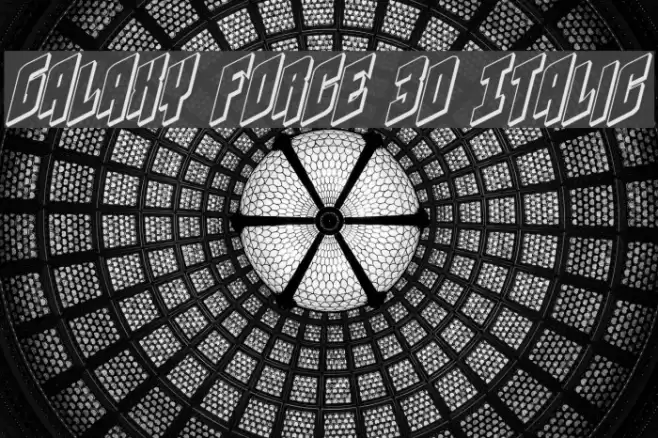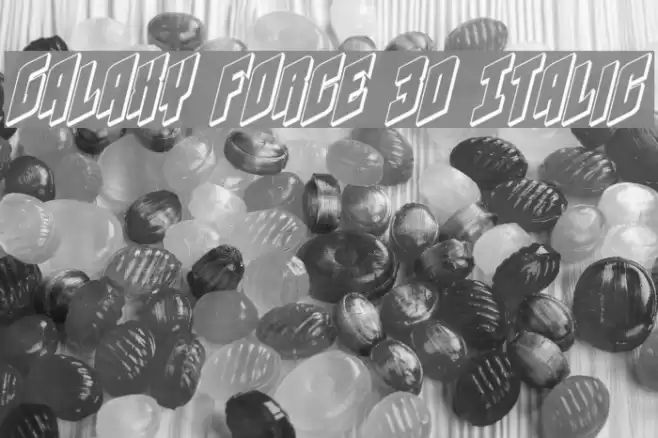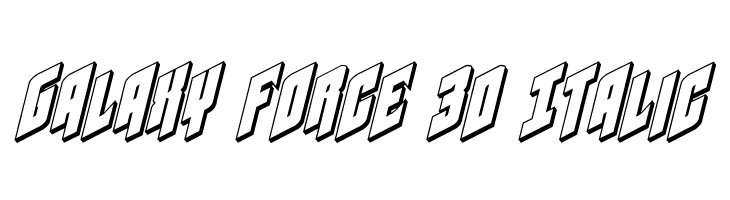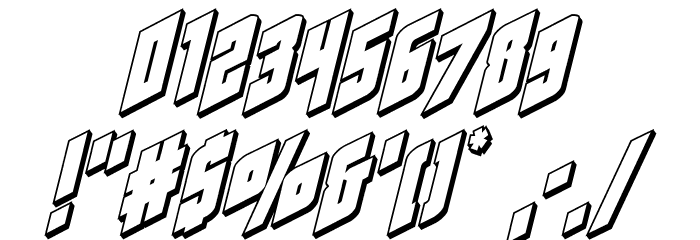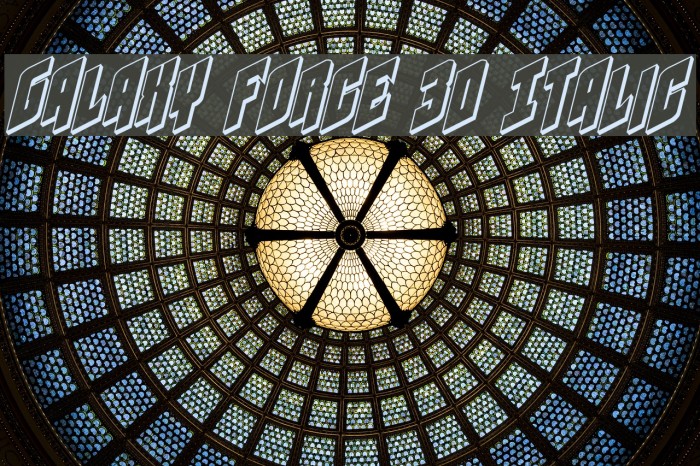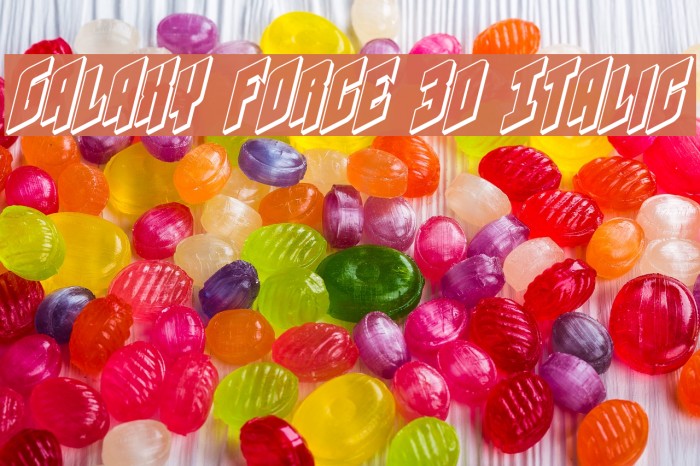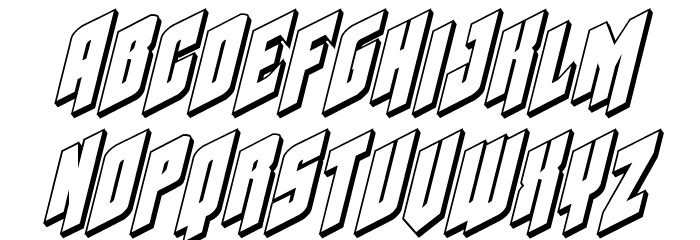
Galaxy Force 3D Italic Font
Galaxy Force 3D Italic Description
This dynamic and bold typeface features a striking 3D effect with italicized characters, giving it a futuristic and energetic appearance. The letters are sharply angled, creating a sense of movement and speed. The thick strokes and shadowing enhance the three-dimensional look, making it stand out prominently. This font is perfect for projects that require a strong visual impact, such as gaming titles, sci-fi themes, or any design that aims to convey a sense of action and excitement. The characters are well-defined, with consistent spacing that maintains readability despite the bold style.
A bold, 3D italic typeface with a futuristic and energetic style from Uncategorized fonts.
- Proposed Projects: Ideal for gaming titles, sci-fi themes, posters, and action-oriented designs.
- Overall Style: Futuristic, Energetic